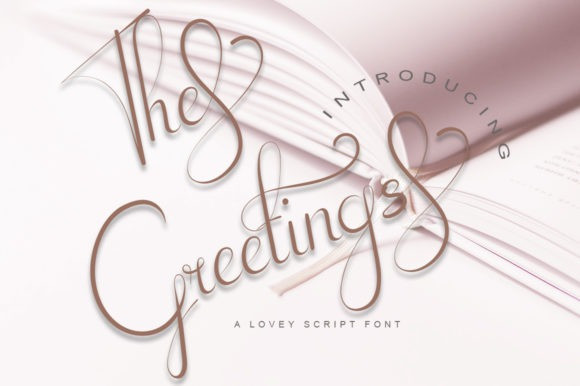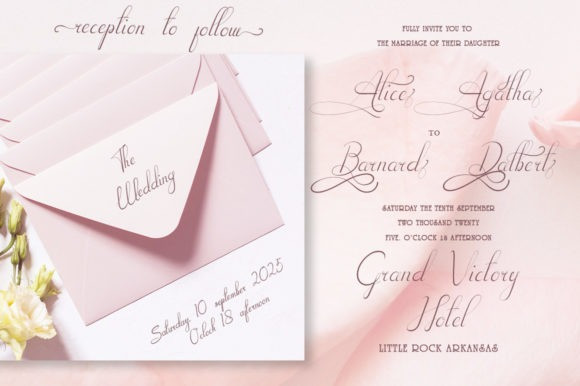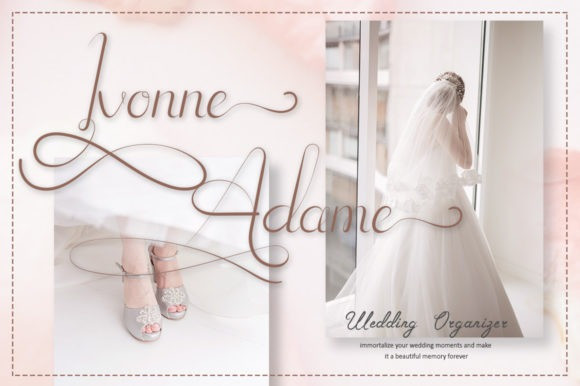
The Greetings Calligraphy Font
The Greetings is a distinct, thin and enchanting handwritten font. This font is PUA encoded which means you can access all of the glyphs and swashes with ease!